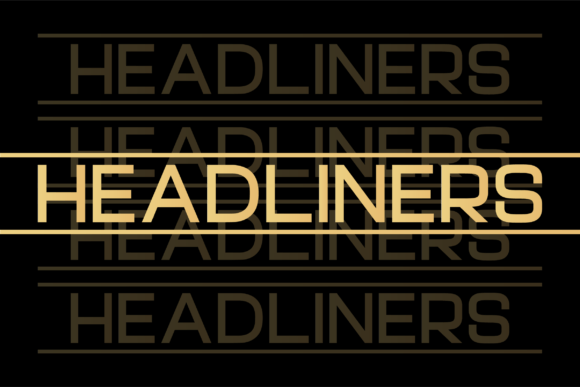
Welcome to the realm of Headliners Font, the ultimate font for those seeking an impactful visual presence. This captivating sans serif font commands attention with its bold, capital letters, exuding an aura of authority and confidence. Dive into the world of Headliners and discover the boundless possibilities it offers.
Headliners Font: A Visual Masterpiece
Headliners Font is not just a font; it's an artistic expression that transforms your words into captivating visuals. Its clean and crisp lines, combined with a touch of contrast, create a striking visual hierarchy that draws the eye to your message. Whether you're creating logos, branding materials, or web headings, Headliners Font ensures your designs stand out from the crowd.
Created by the masterminds at Huntype, Headliners Font is renowned for its versatility. Its seamless adaptability to any context makes it a true all-rounder. From the delicate intricacy of tattoo quotes to the bold statements of branding campaigns, Headliners Font effortlessly commands attention.
The Best Font for Tattoo Quotes
Headliners Font is the ultimate choice for those seeking to immortalize their thoughts, memories, or aspirations through the art of tattooing. Its bold, confident strokes lend a timeless quality to your chosen words, ensuring they remain as powerful and meaningful as the day they were inked. With Headliners Font, your tattoo becomes more than just a design; it becomes a bold statement of your individuality.
Crafted for Logos and Branding
In the fiercely competitive world of branding, Headliners Font emerges as a formidable ally. Its inherent strength and unwavering presence make it the perfect choice for logos and branding materials. Whether you're aiming for a modern, minimalist aesthetic or a more traditional, timeless look, Headliners Font delivers. Its clean lines and confident strokes create a visual impact that leaves a lasting impression, ensuring your brand stands out from the noise.
Web Headings that Captivate
In the vast expanse of the digital realm, Headliners Font reigns supreme as the font of choice for web headings. Its ability to command attention and convey messages with clarity and impact is unmatched. Whether you're crafting headlines for blog posts, designing landing pages, or creating eye-catching calls to action, Headliners Font ensures your words resonate with your audience.